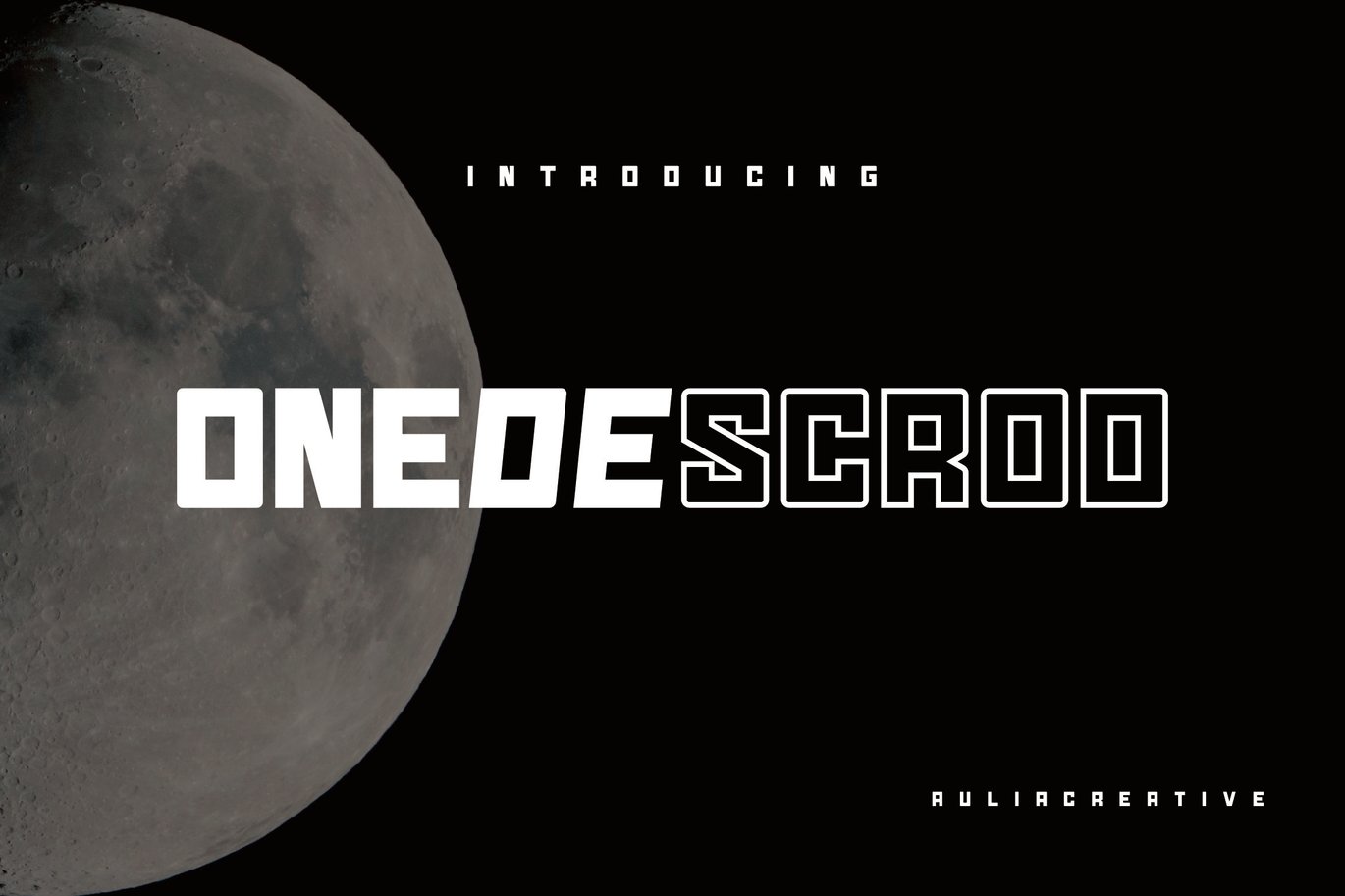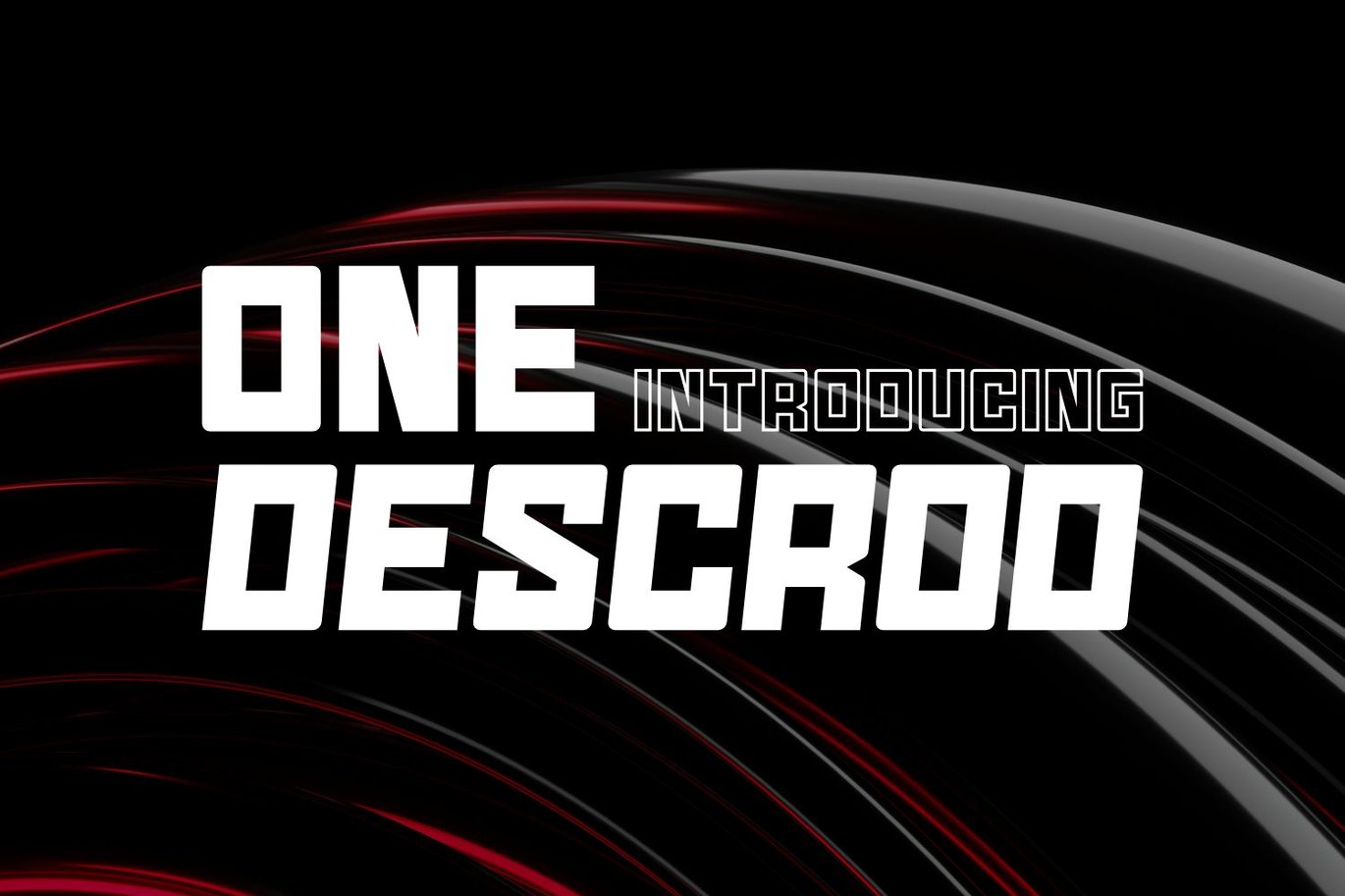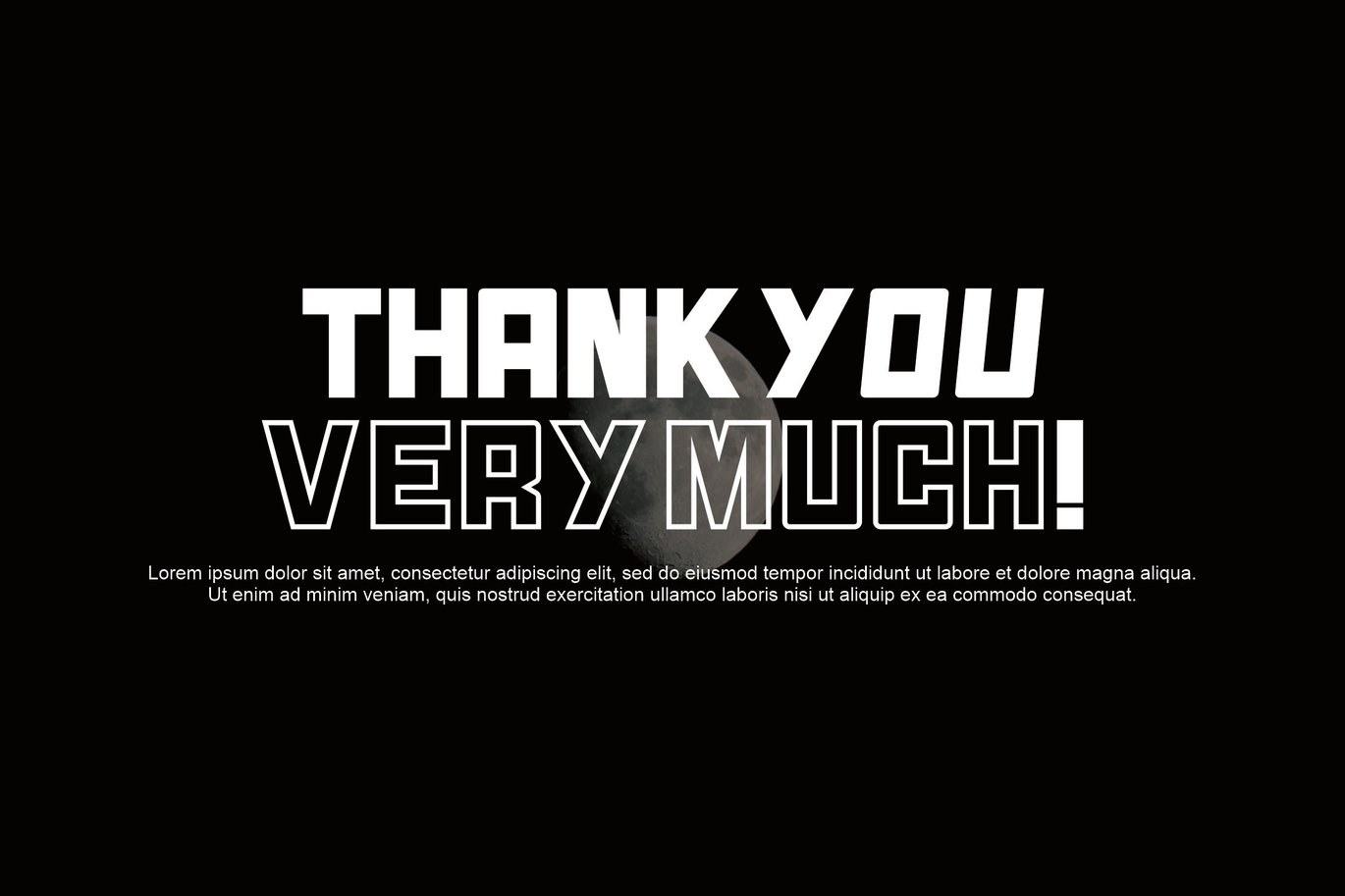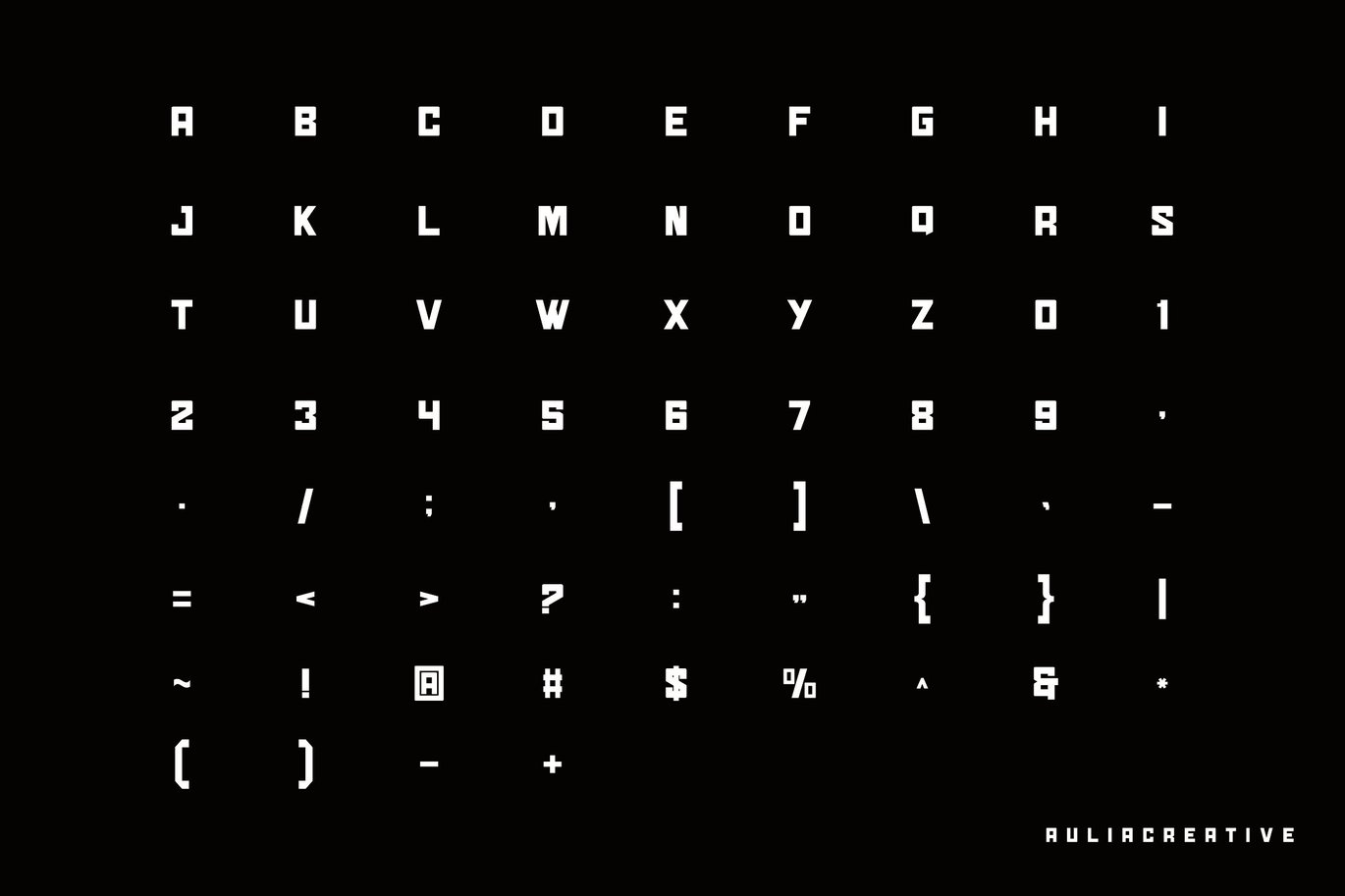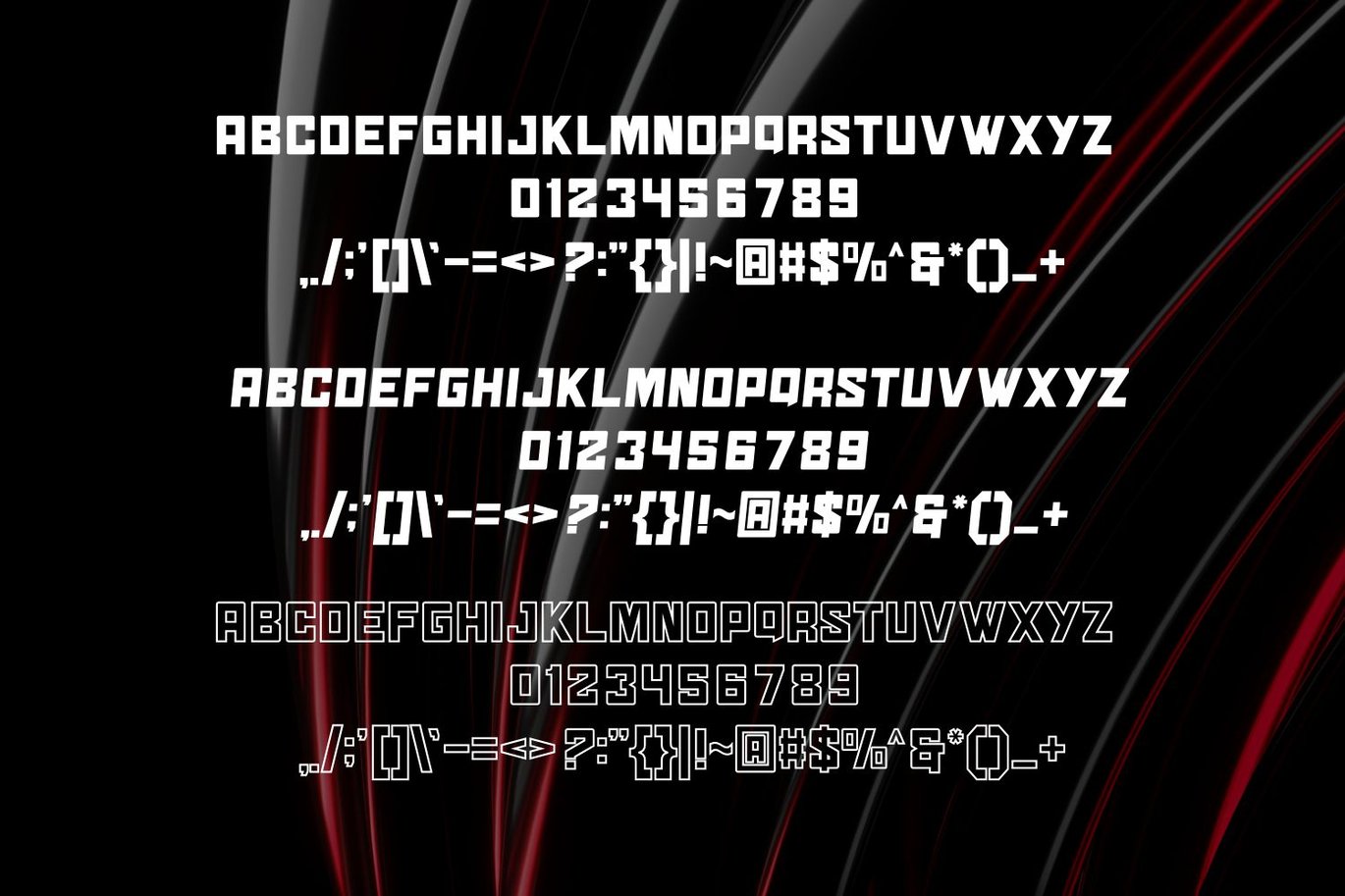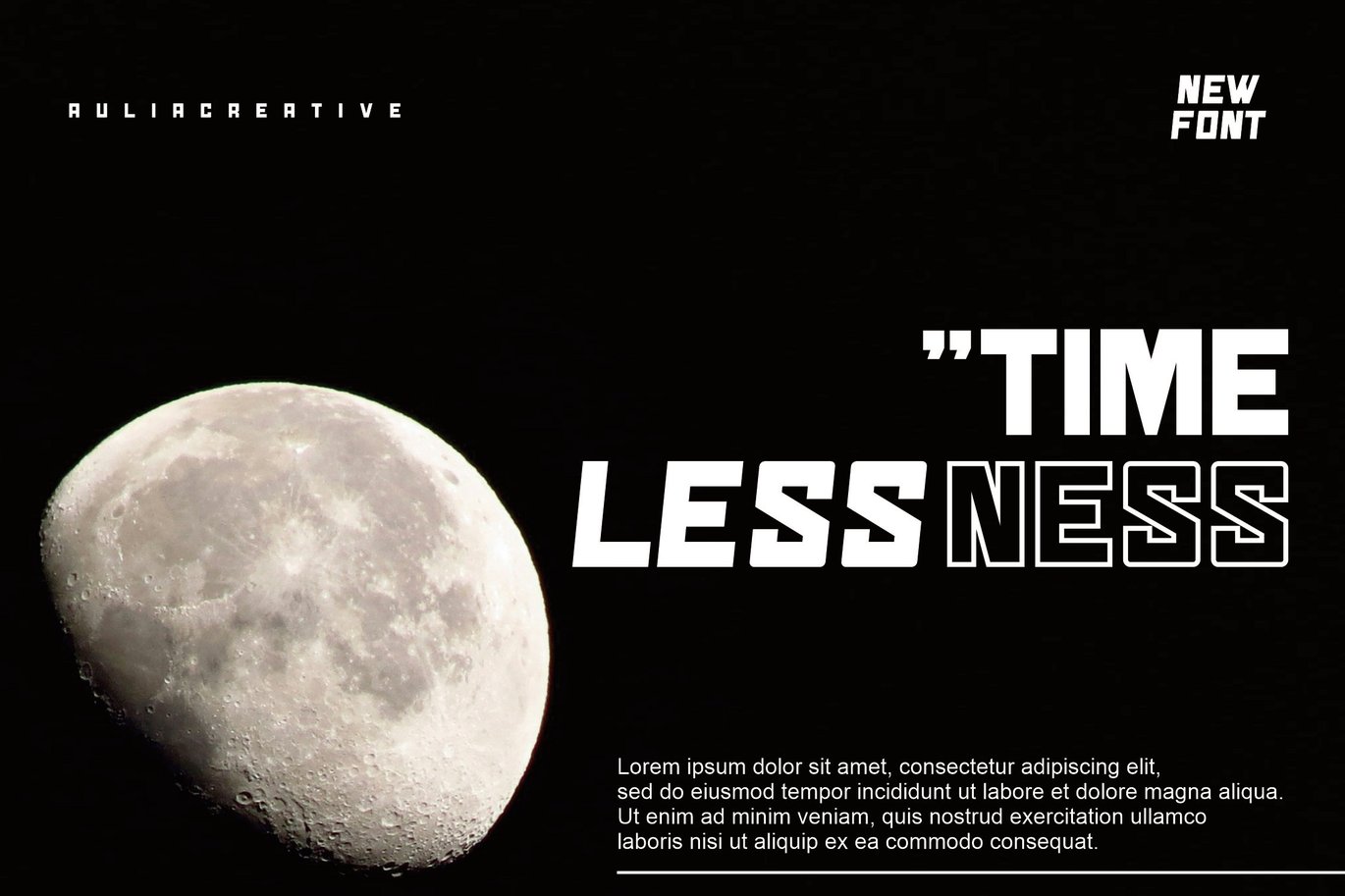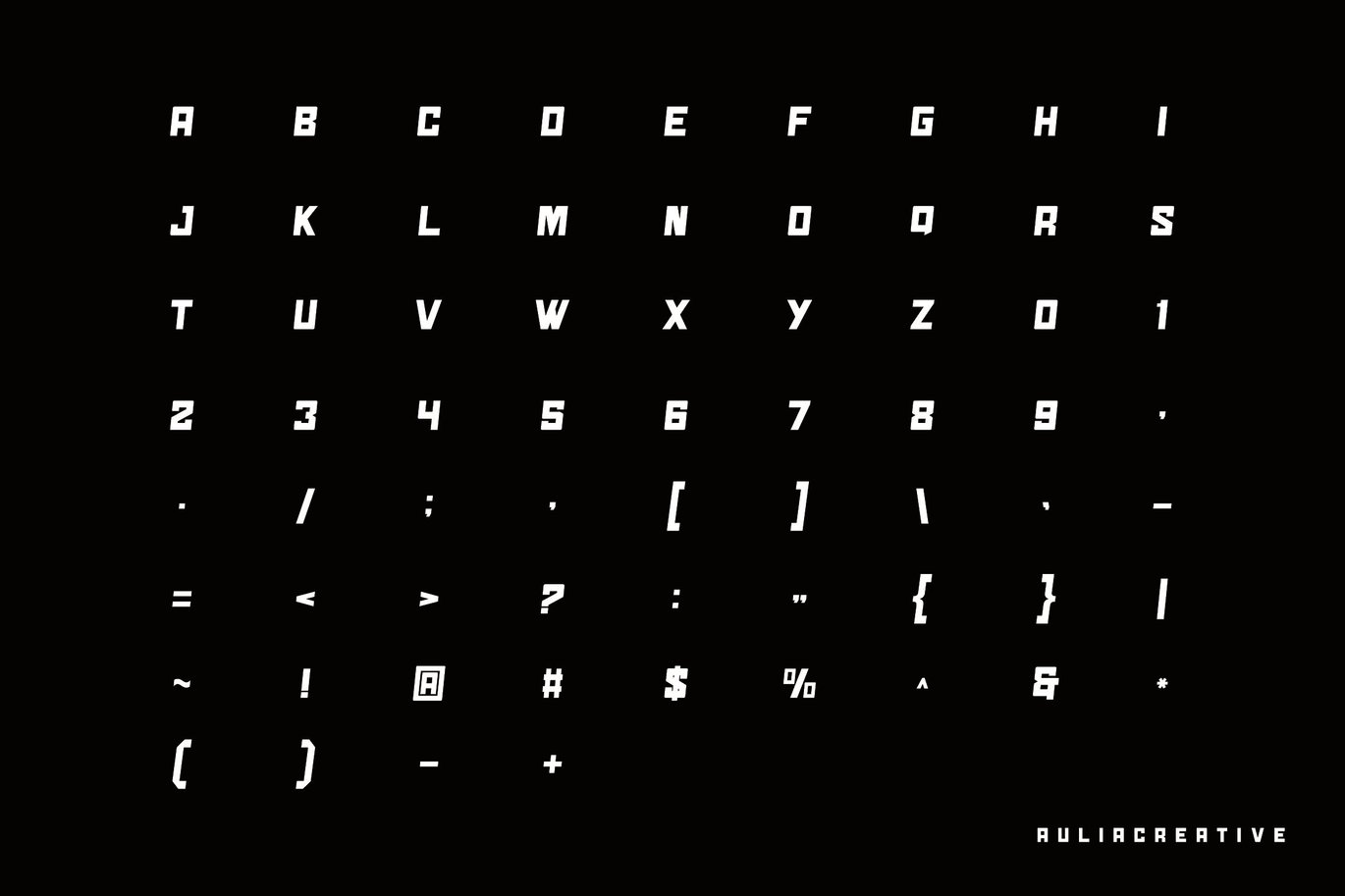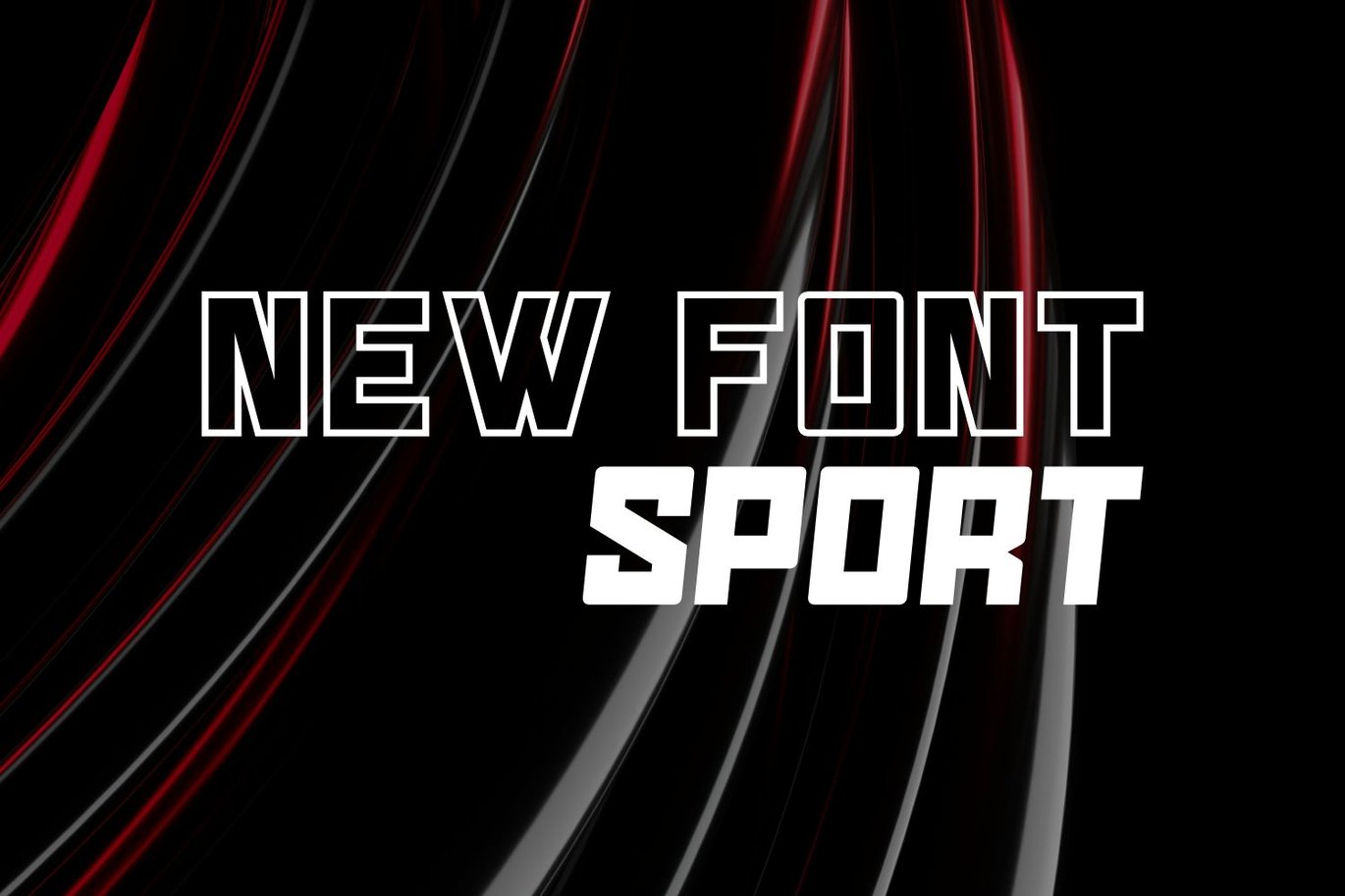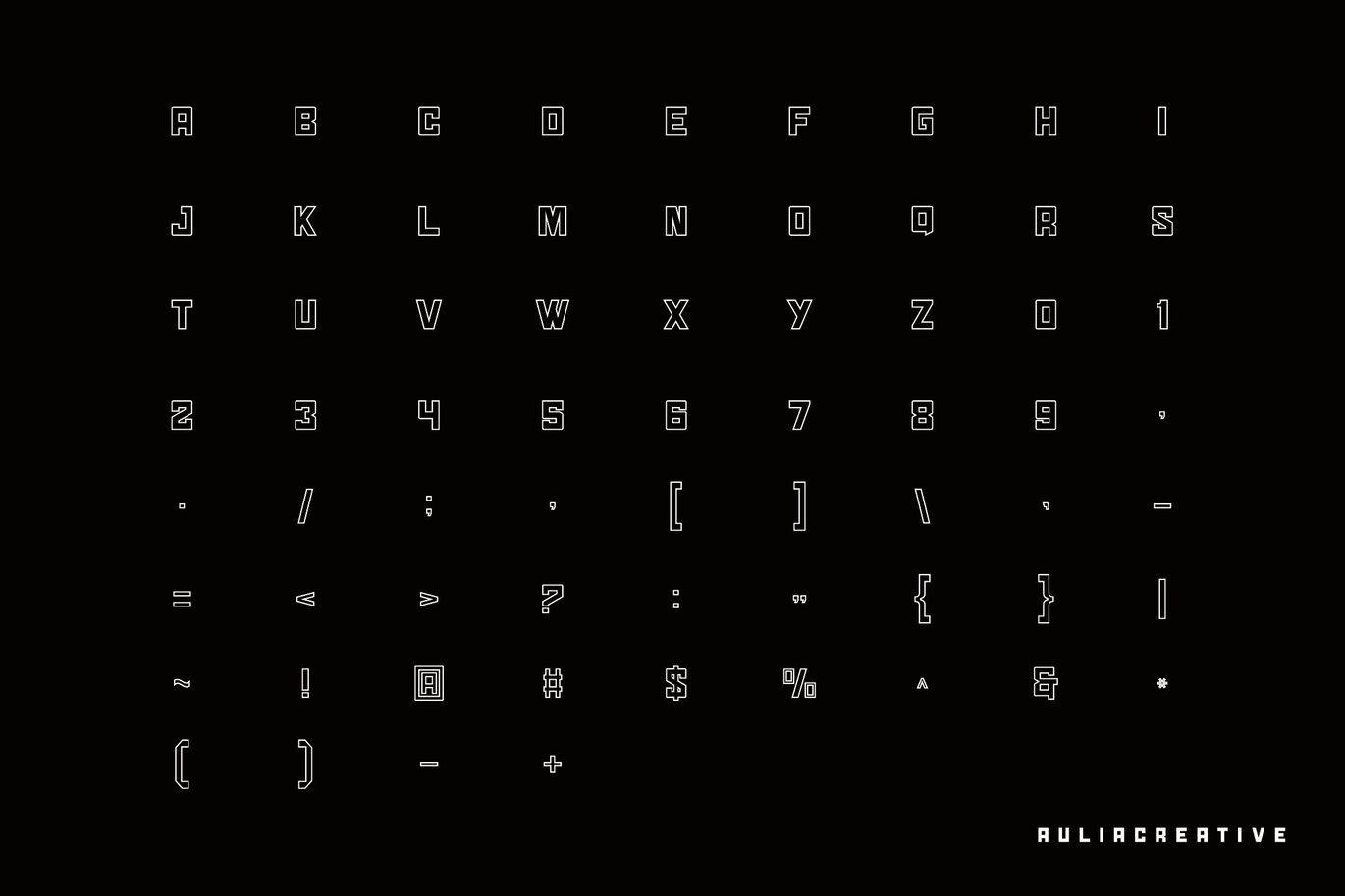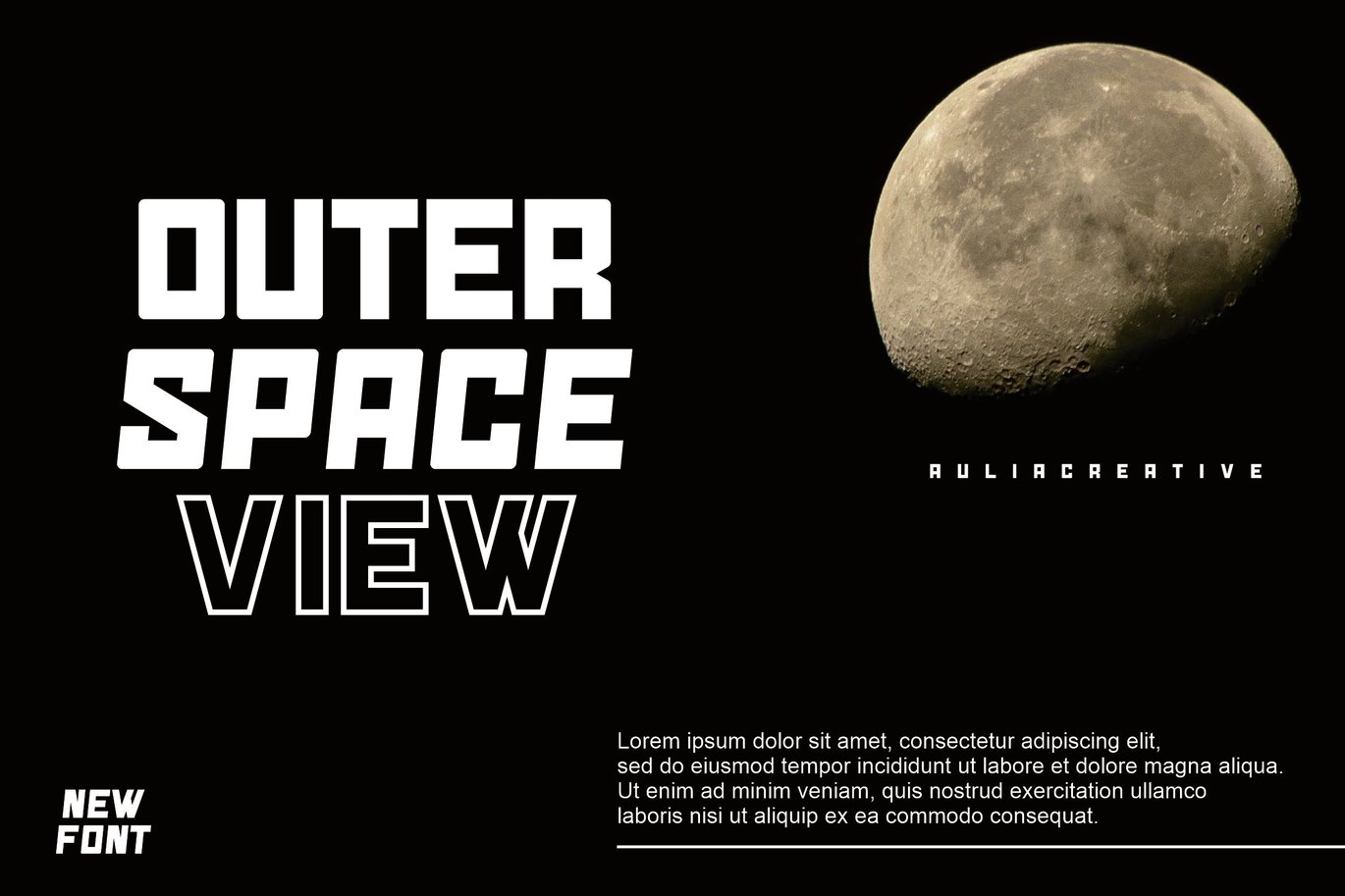
Onedescrod Outline Bold Italic Font
** Introducing our new product Onedescrod Font, Modern Font **
Onedescrod Font (Bold – Bold Itatic – Outline) Onedescrod Font is an elegant and authentic display font. This font is suitable for any branding projects such as logos, t-shirt printing, esport and many more. extraordinary in many contexts.